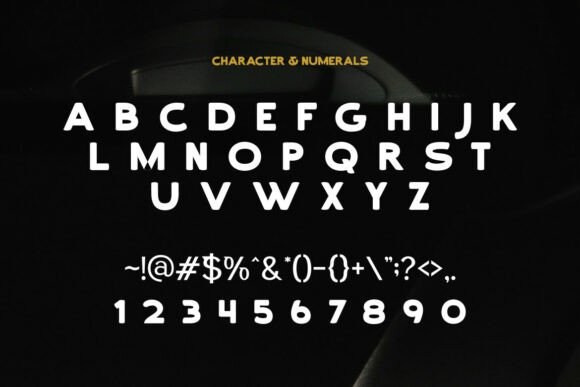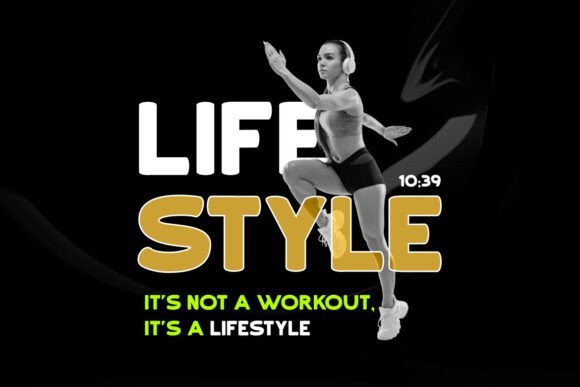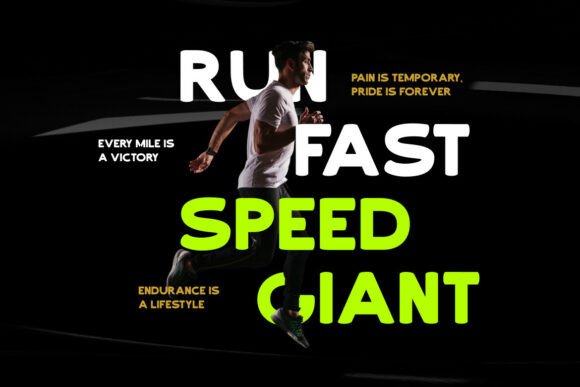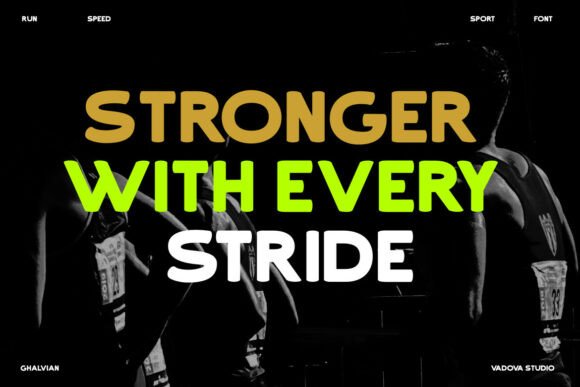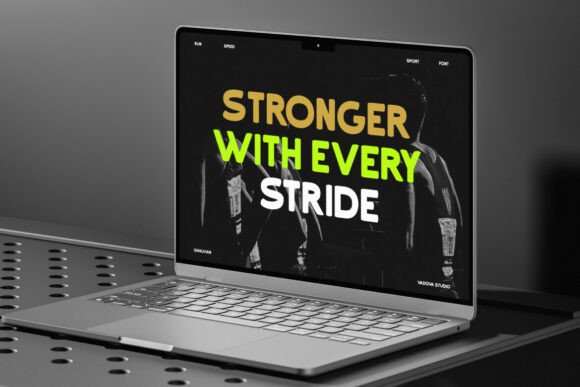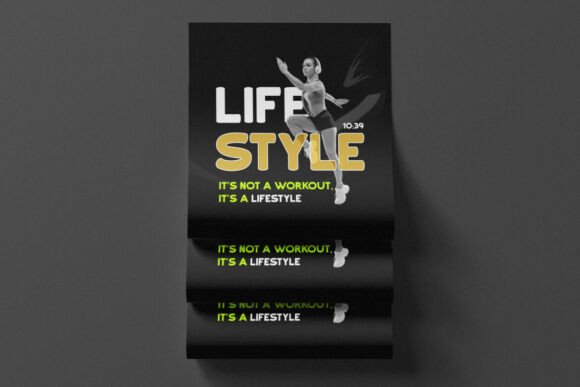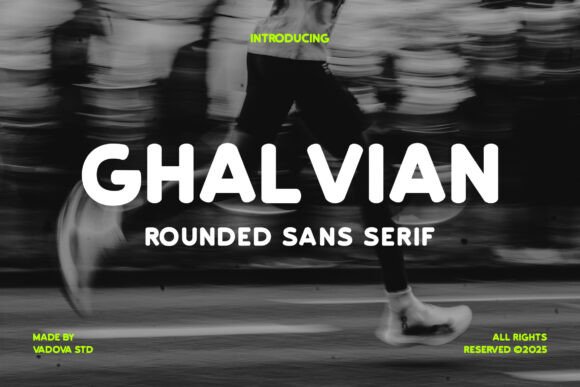
Ghalvian Font: The Ultimate Choice for Bold and Modern Designs
In the world of typography, fonts play a crucial role in conveying the tone and personality of a brand or design. For designers and crafters looking for a bold and modern sans serif font, Ghalvian Rounded Sans Serif is an excellent choice. This font is specifically designed for high-impact visuals, blending modern athleticism with clean, friendly curves that exude energy, confidence, and motion.
The Design and Features of Ghalvian Font
Ghalvian Rounded Sans Serif is a bold and rounded sans serif font that is perfect for sports branding, active lifestyle campaigns, fitness, and urban poster designs. The font’s wide stance and consistent rhythm make it both attention-grabbing and easy to read, even from a distance. The sharp yet playful forms of Ghalvian bring versatility for titles, quotes, and digital headlines that demand a bold statement.
Perfect for High-Impact Visuals
Ghalvian Font is designed to make a statement. Its bold and rounded curves are perfect for creating high-impact visuals that grab attention and convey energy and confidence. The font’s modern athleticism and clean lines make it an excellent choice for sports branding, fitness, and active lifestyle campaigns. Whether you’re designing a logo, poster, or digital headline, Ghalvian Font is sure to make a lasting impression.
Key Benefits of Ghalvian Font
- Attention-grabbing: The wide stance and consistent rhythm of Ghalvian Font make it perfect for grabbing attention and conveying energy and confidence.
- Easy to read: Despite its bold design, Ghalvian Font is easy to read, even from a distance, making it perfect for posters, billboards, and digital headlines.
- Versatile: Ghalvian Font is versatile and can be used for titles, quotes, and digital headlines, making it a great addition to any design project.
- Modern and athletic: The font’s modern athleticism and clean lines make it perfect for sports branding, fitness, and active lifestyle campaigns.
Use Cases for Ghalvian Font
Ghalvian Font is perfect for a variety of design projects, including:
- Sports branding: The font’s modern athleticism and bold design make it perfect for sports branding, including logos, jerseys, and equipment.
- Active lifestyle campaigns: Ghalvian Font is perfect for active lifestyle campaigns, including fitness and wellness branding, advertising, and marketing materials.
- Urban poster designs: The font’s bold and modern design make it perfect for urban poster designs, including posters, flyers, and brochures.
- Digital headlines: Ghalvian Font is perfect for digital headlines, including website headers, social media graphics, and digital advertising.
Tips for Using Ghalvian Font
Here are some tips for using Ghalvian Font in your design projects:
- Use it boldly: Ghalvian Font is designed to make a statement, so don’t be afraid to use it boldly and prominently in your design.
- Pair it with contrasting fonts: Pair Ghalvian Font with contrasting fonts to create visual interest and add depth to your design.
- Experiment with colors: Ghalvian Font looks great in a variety of colors, so don’t be afraid to experiment and find the perfect color scheme for your design.
Ghalvian Font is a bold and modern sans serif font that is perfect for designers and crafters looking for a high-impact font for their design projects. With its modern athleticism, clean lines, and bold design, Ghalvian Font is sure to make a lasting impression. Whether you’re designing a logo, poster, or digital headline, Ghalvian Font is an excellent choice.